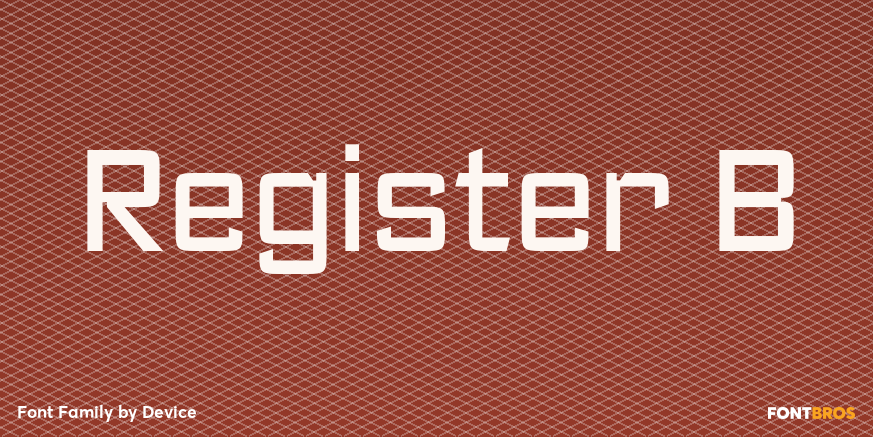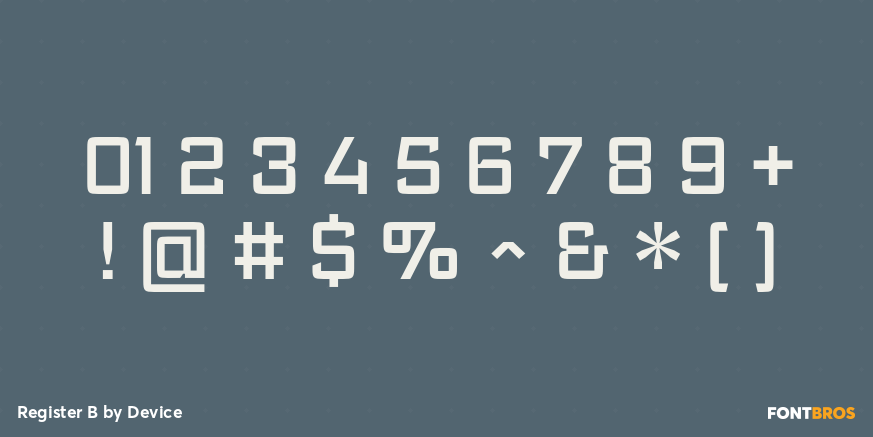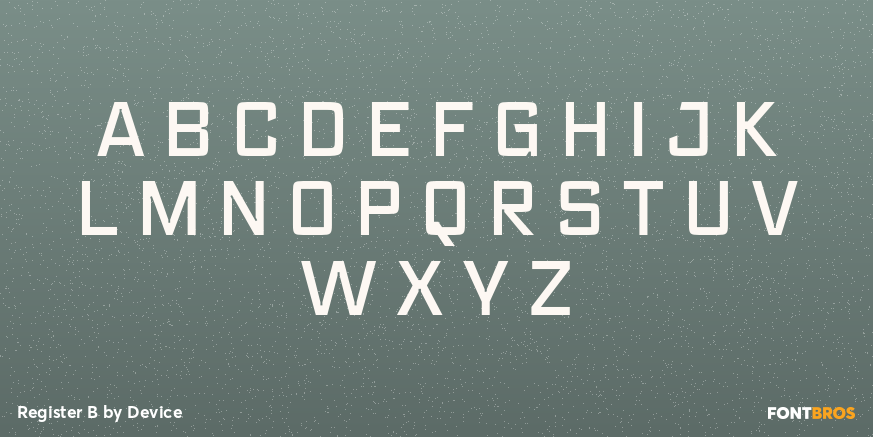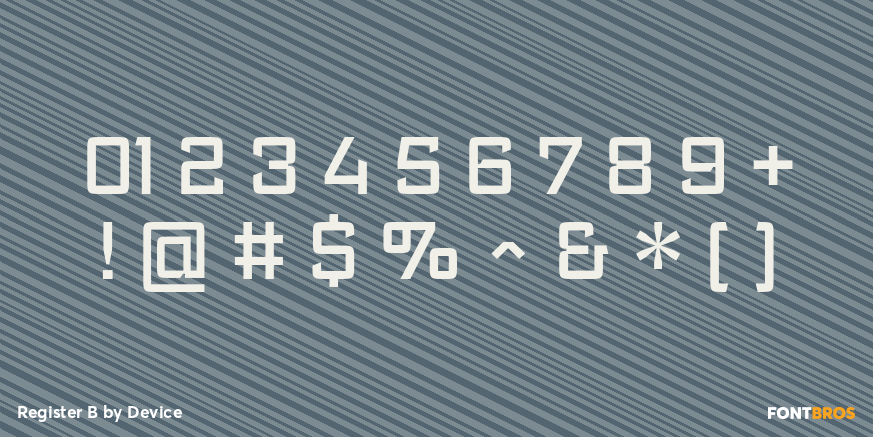
Register B
Font Family by Device
Register B is a futuristic sans serif family with a clean, technical voice and a distinctly forward-looking feel. Its sharp, streamlined forms give layouts a controlled modern edge, making it a strong choice when you want typography that feels precise, contemporary, and visually confident.
Built as a 6-style family by Device, it includes Extra Light, Medium, and Bold weights with matching italics. That range makes it useful for branding systems, posters, packaging, signage, social graphics, and other display-driven work where a sleek, sci-fi-leaning sans serif can set the tone without losing clarity.
If your project calls for a type family that feels engineered rather than ornamental, this one brings a crisp futuristic attitude with enough variety to create contrast across headlines, subheads, and standout graphic treatments.